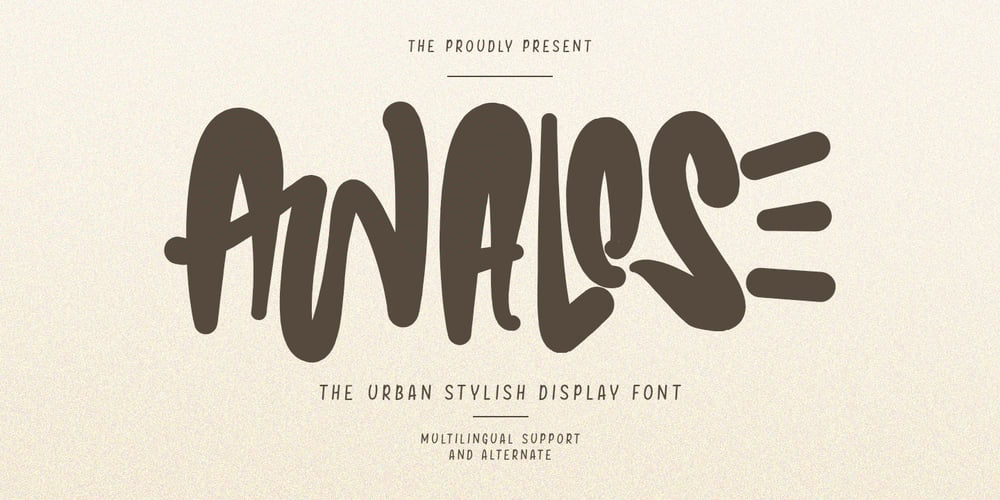
MC Awalose Font Family was designed by Gilang Maulana and published by Maulana Creative. MC Awalose contains 1 styles and family package options. Awalose urban stylish display typeface. With vintage stroke, fun character with a ligatures and alternates. To give you an extra creative work. Awalose support multilingual language. This font is good for logo design, Social media, Movie Titles, Books Titles, a short text even a long text letter and good for your secondary text font with script or serif. Make a stunning work with Awalose urban stylish display typeface. Cheers, Maulana Creative